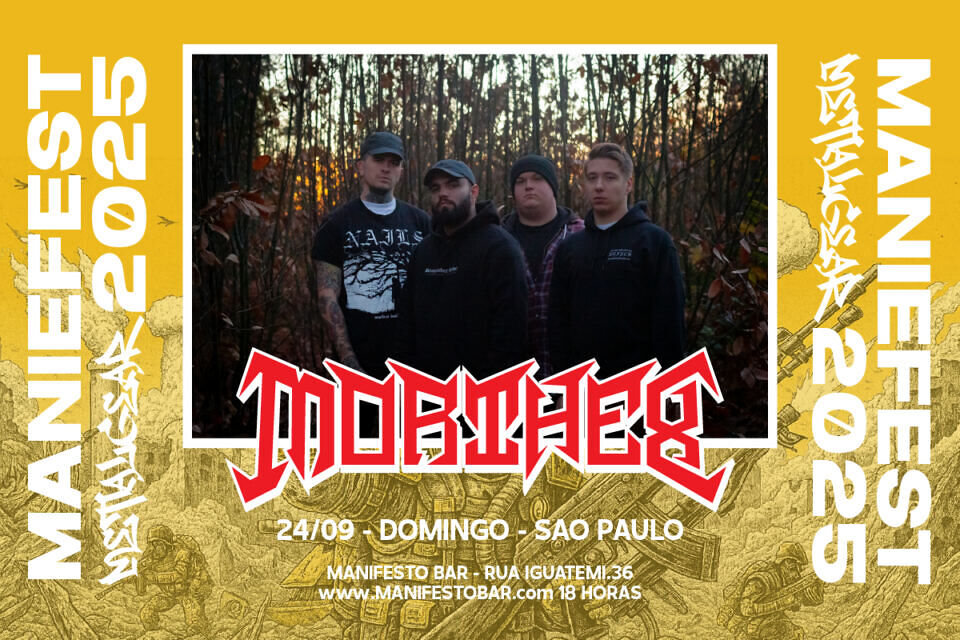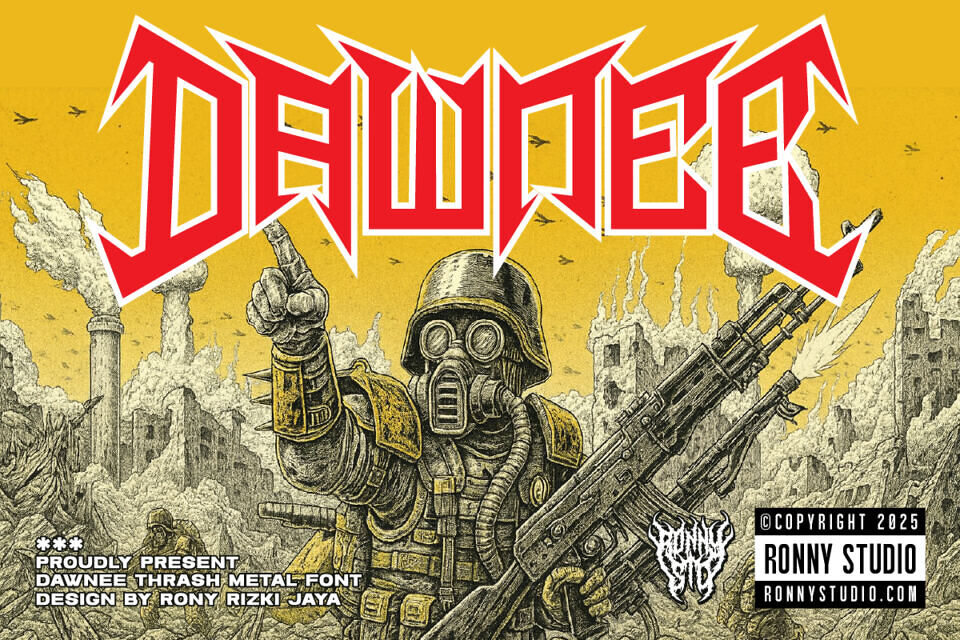
Dawnee Font
Unleash raw, electrifying energy with Dawnee, a thrash metal display font forged from bold strokes, razor-sharp edges, and underground rebellion. Inspired by metal band logos and apocalyptic design, Dawnee embodies intensity and aggression for projects that demand dominance and attitude.
Its striking letterforms bring impact to band logos, album covers, gig posters, and streetwear graphics. Featuring uppercase, lowercase, alternates, numbers, symbols, and multilingual support, Dawnee offers unmatched creative freedom. Perfect for metal branding, punk designs, event promotions, and hardcore merchandise, this font defines the true sound of visual chaos.